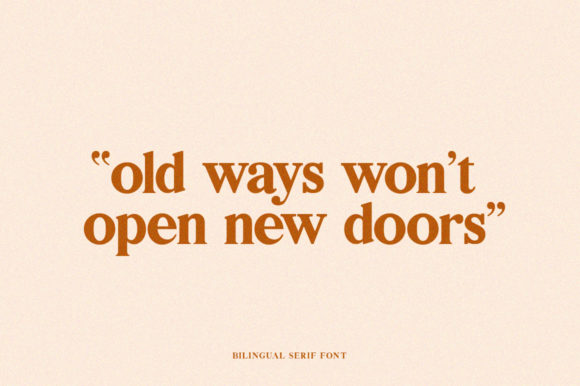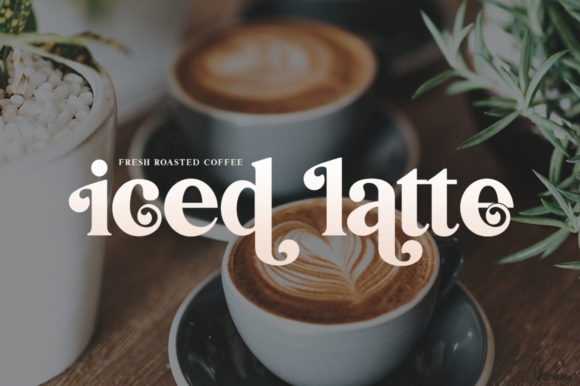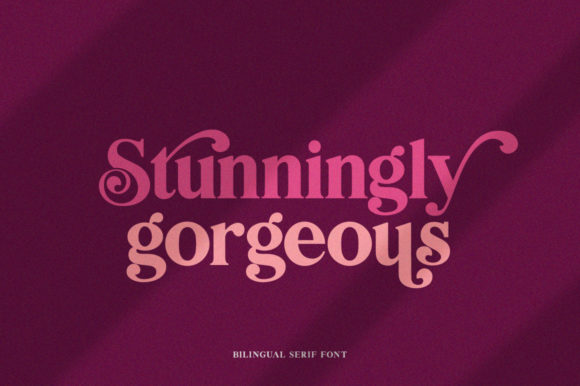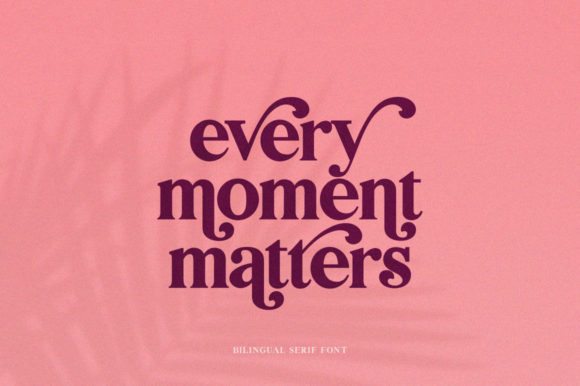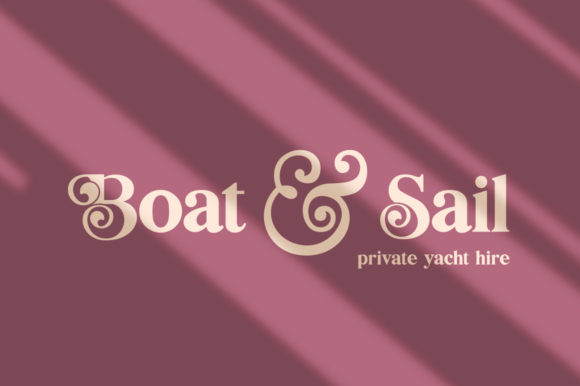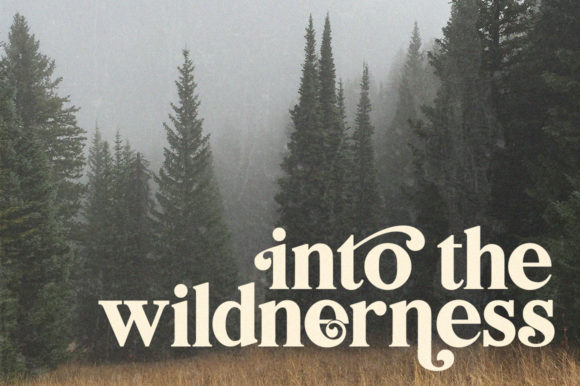
The Power of Language in Design
As designers, we’ve all been there – staring at a blank page, trying to convey a message in a language that’s not our own. But what if you could transcend language barriers and connect with your audience on a deeper level? Introducing the Bilingual Font, a game-changing serif font that breaks down linguistic boundaries and opens up a world of creative possibilities.
This innovative font is designed to bridge the gap between languages, allowing designers to communicate effectively and beautifully across cultures. With its stylish swashes and robust base font, the Bilingual Font is a valuable tool for designers who want to add a touch of sophistication and elegance to their work.
Bilingual Font Key Features
- Language Support: Designed to support bidirectional text, allowing for seamless display of text in multiple languages, including right-to-left scripts like Arabic and Hebrew.
- Character Set: Includes a comprehensive character set, covering a wide range of languages and scripts, including Latin, Cyrillic, Greek, and more.
- Font Styles: Offers a range of font styles, including regular, italic, bold, and bold italic, providing versatility in font usage.
Bilingual Font Review
I recently had the chance to work with the Bilingual Font, and I must say it’s a unique and intriguing choice for designers.
- ✨ The font’s ability to seamlessly integrate two languages into one design is truly impressive. It’s a great option for projects that require a mix of languages.
- ✨ The font’s versatility allows it to be used in a variety of contexts, from print materials to digital interfaces.
- ✨ The font’s clean and modern design makes it a great choice for contemporary designs.
- ⚠️ The font’s limited character set may be a concern for designers who need to use it for more complex projects.
- ⚠️ Some users may find the font’s unique design style to be too bold or overwhelming.
Overall, I think the Bilingual Font is a solid choice for designers who need a versatile and unique font for their projects. While it may have some limitations, its strengths far outweigh its weaknesses.
Tips for Getting the Most Out of Bilingual Font
Use bilingual font to create visually appealing and culturally sensitive designs.
Experiment with different font combinations and styles to create a unique look.
Use bilingual font to communicate with a diverse audience.
Bilingual font is commonly used in:
Language learning materials
Cultural events and festivals
International business and marketing
Language translation and interpretation